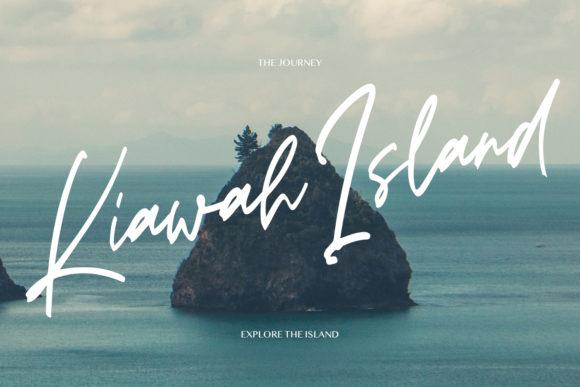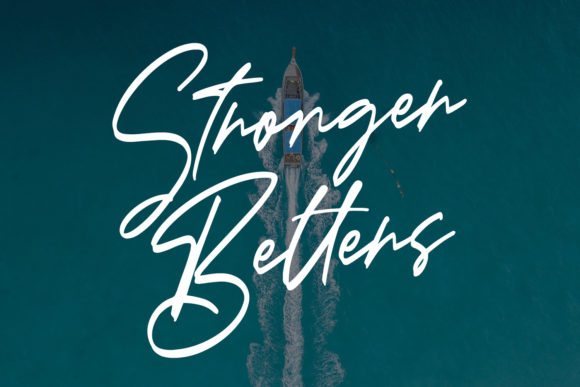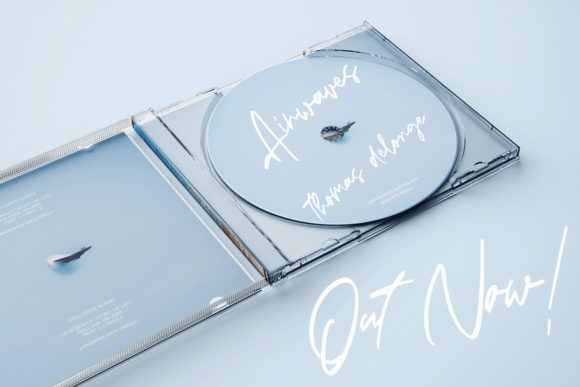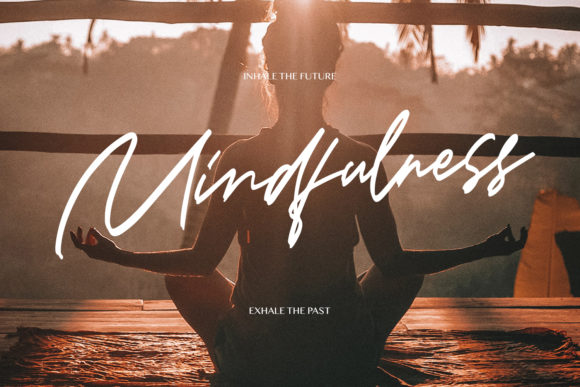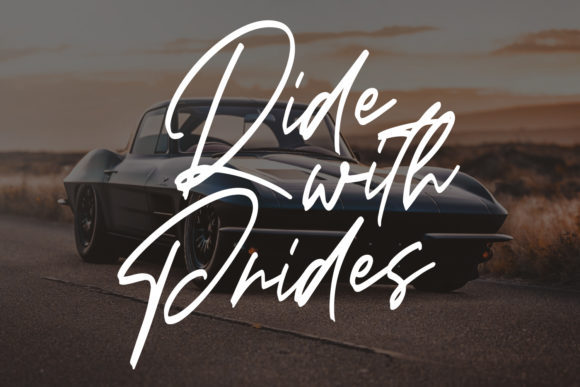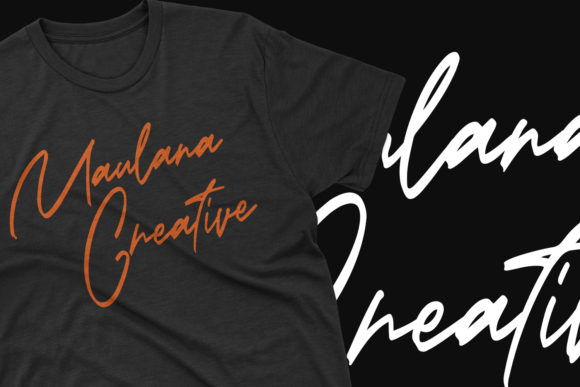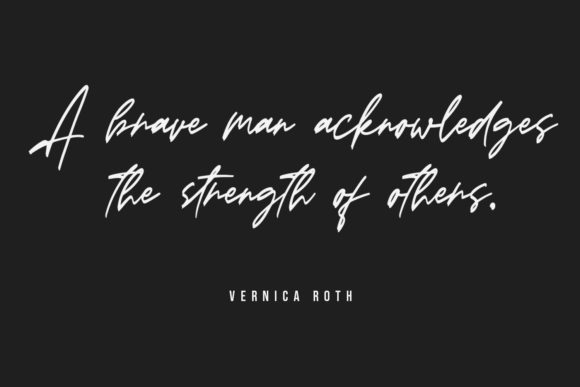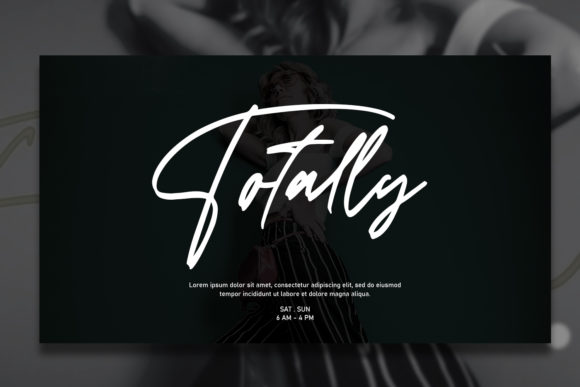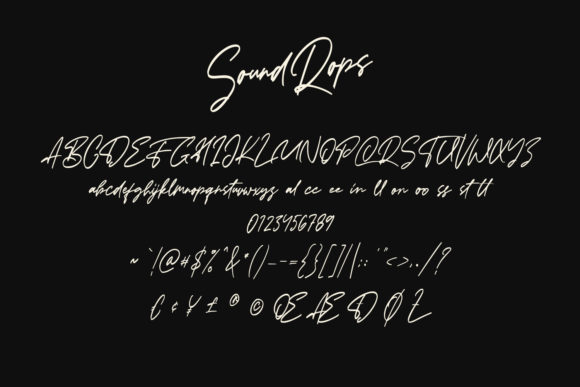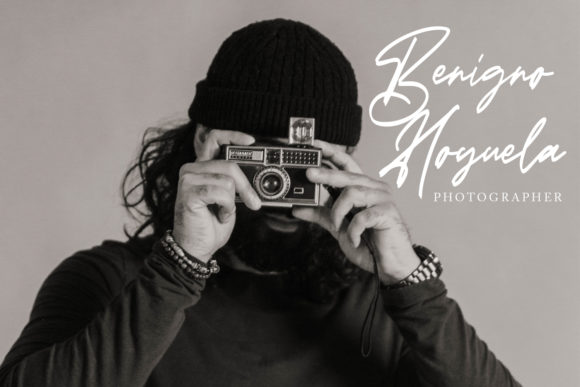
Soundrops Font
Soundrops is inspired by classic typography and brings its own unique style to any design project. This handwritten font will look outstanding in any context, whether it’s being used on busy backgrounds or as a standalone headline!